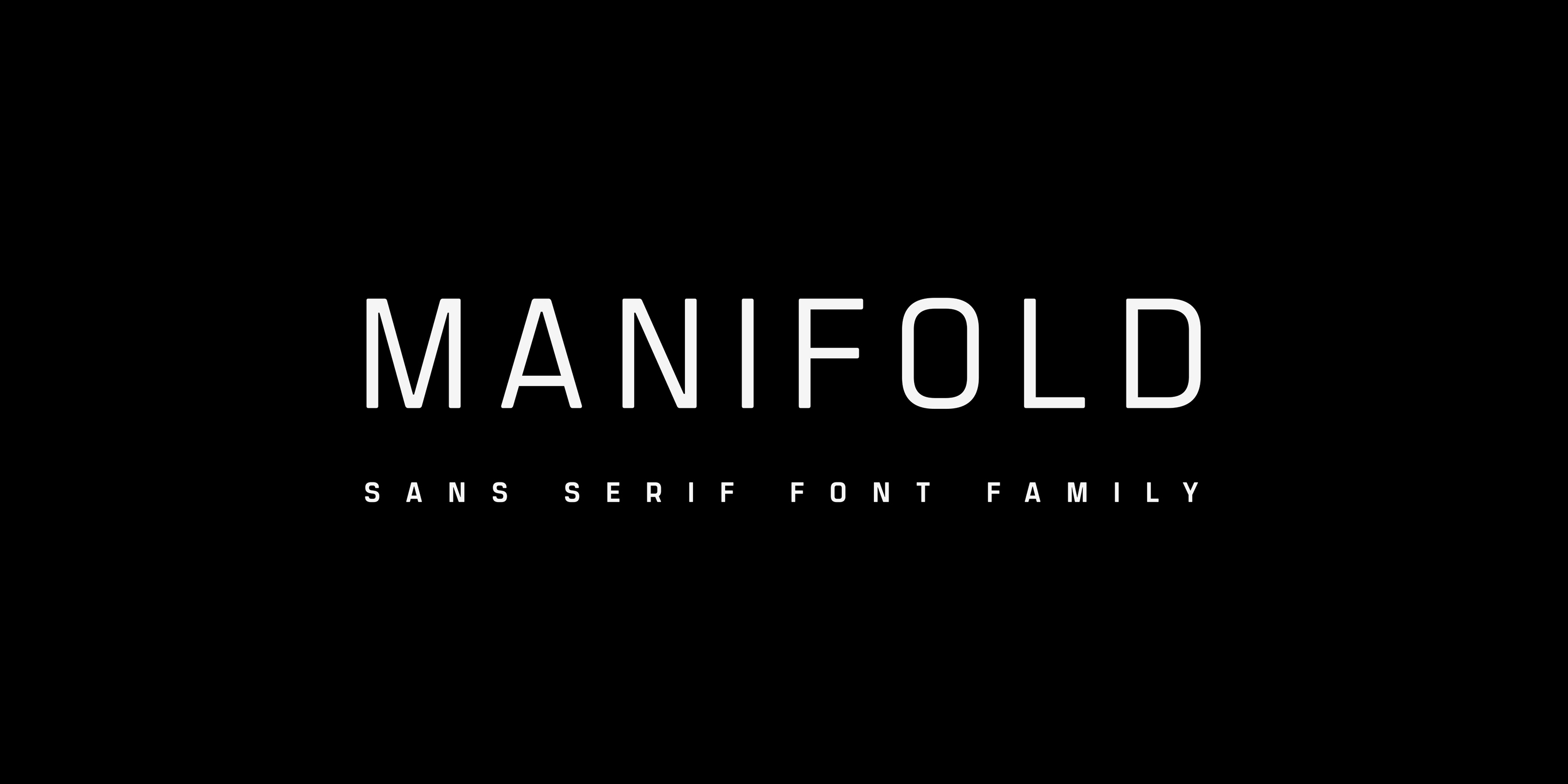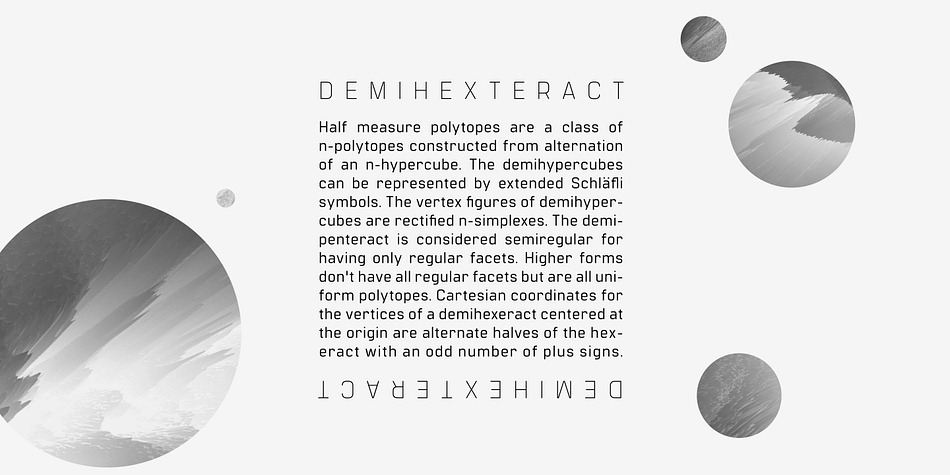
Manifold CF
Manifold CF is a sans serif font family. This typeface has sixteen styles and was published by Connary Fagen Type Design.
Strong, unified, and articulate. Manifold is a utilitarian typeface inspired by the precision of a computer terminal, then tempered and softened with a hint of warmth. Manifold’s unified letterforms and tall x-height are excel in user interfaces and short copy – or track it out for a sophisticated, cinematic look for titles and headlines.